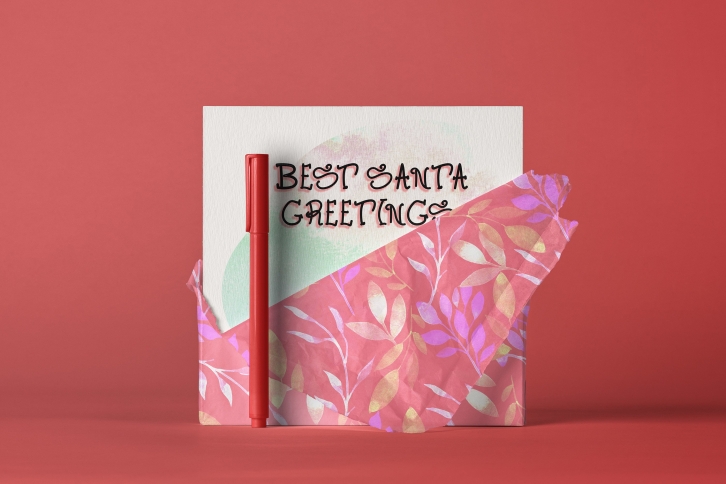
Best Santa Greetings is a charming and curly handwritten font. It looks both festive and lovely and it will most certainly make each of your designs look out of this world.